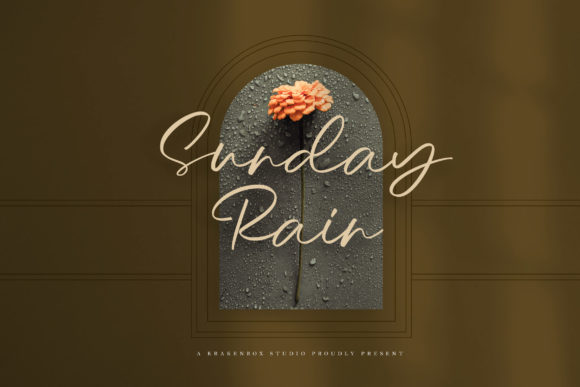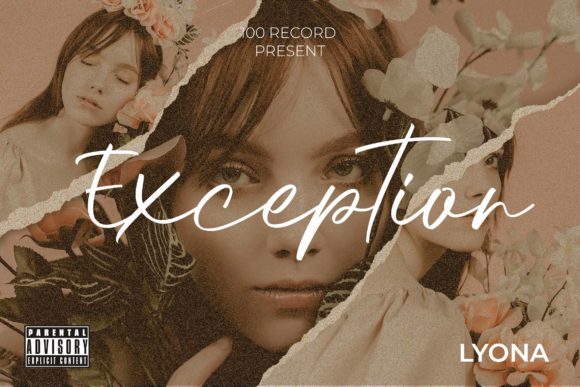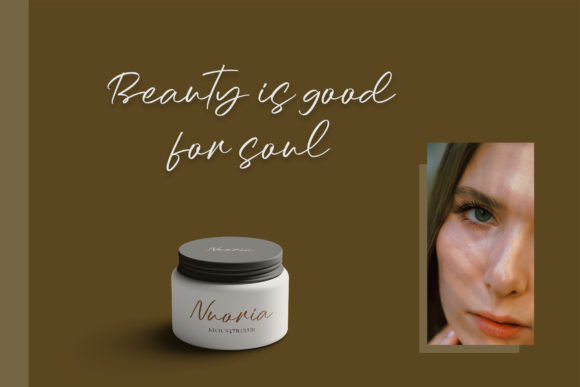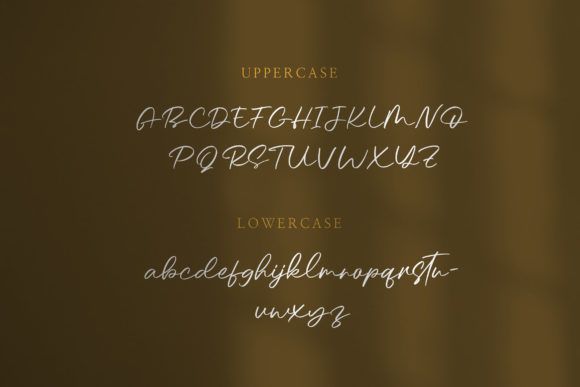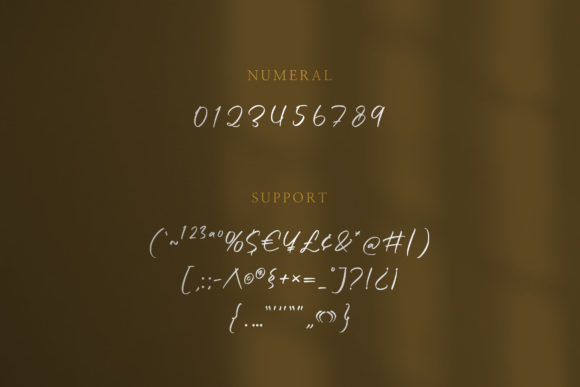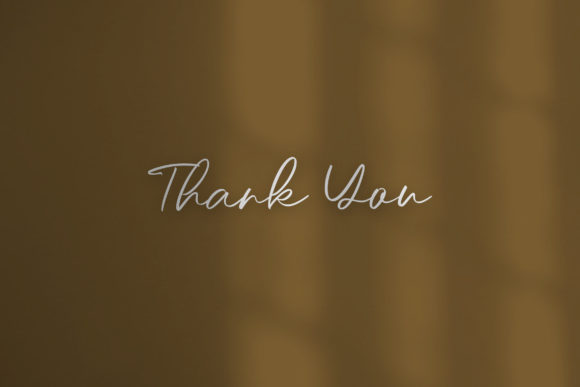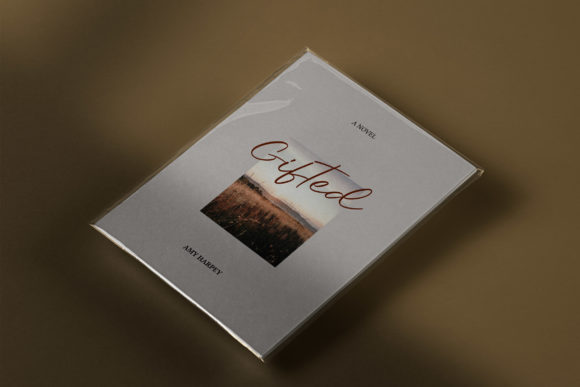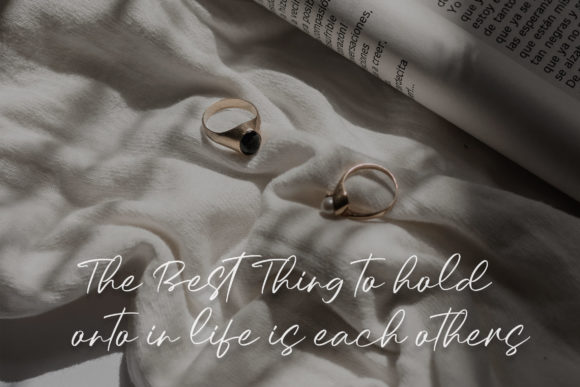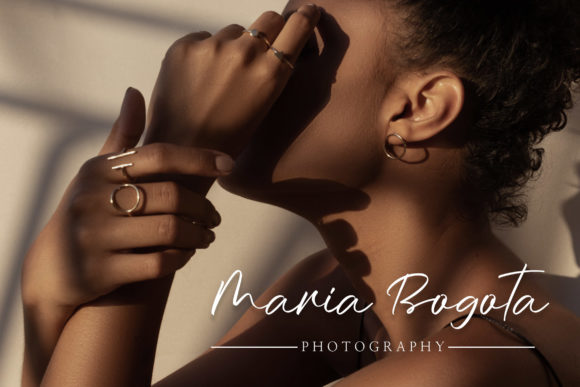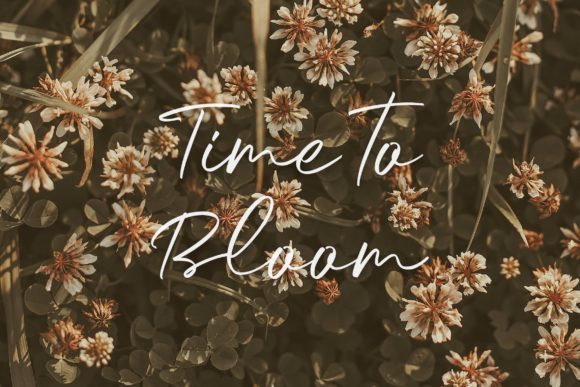
Sunday Rain – Script Font
About Sunday Rain – Script Font
Sunday Rain is a fashionable sophisticated-style script with its own unique curves and an elegant inky flow.. Its elegant, classy, and modern look makes it a fantastic choice for fashion, signature, album covers logos, branding, magazines, social media posts, advertisement, and many more. Use this display font to add that special cool touch to any design idea you can think of!